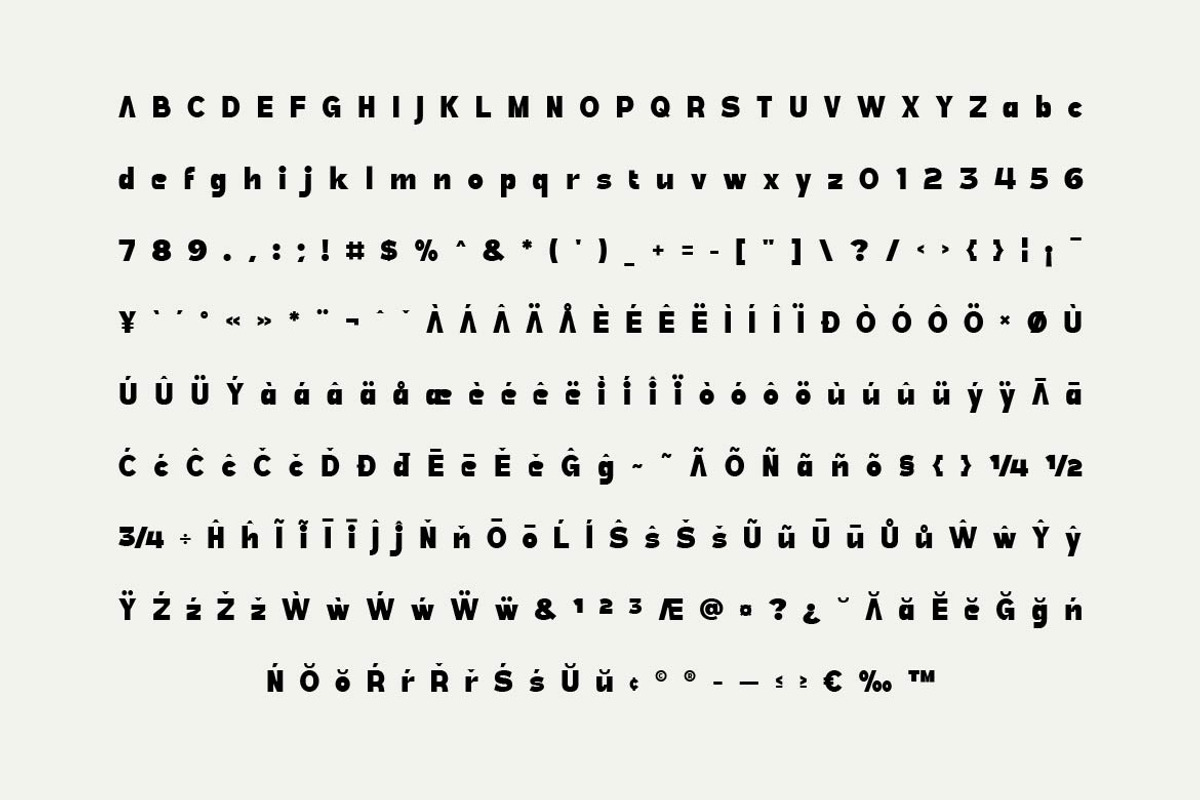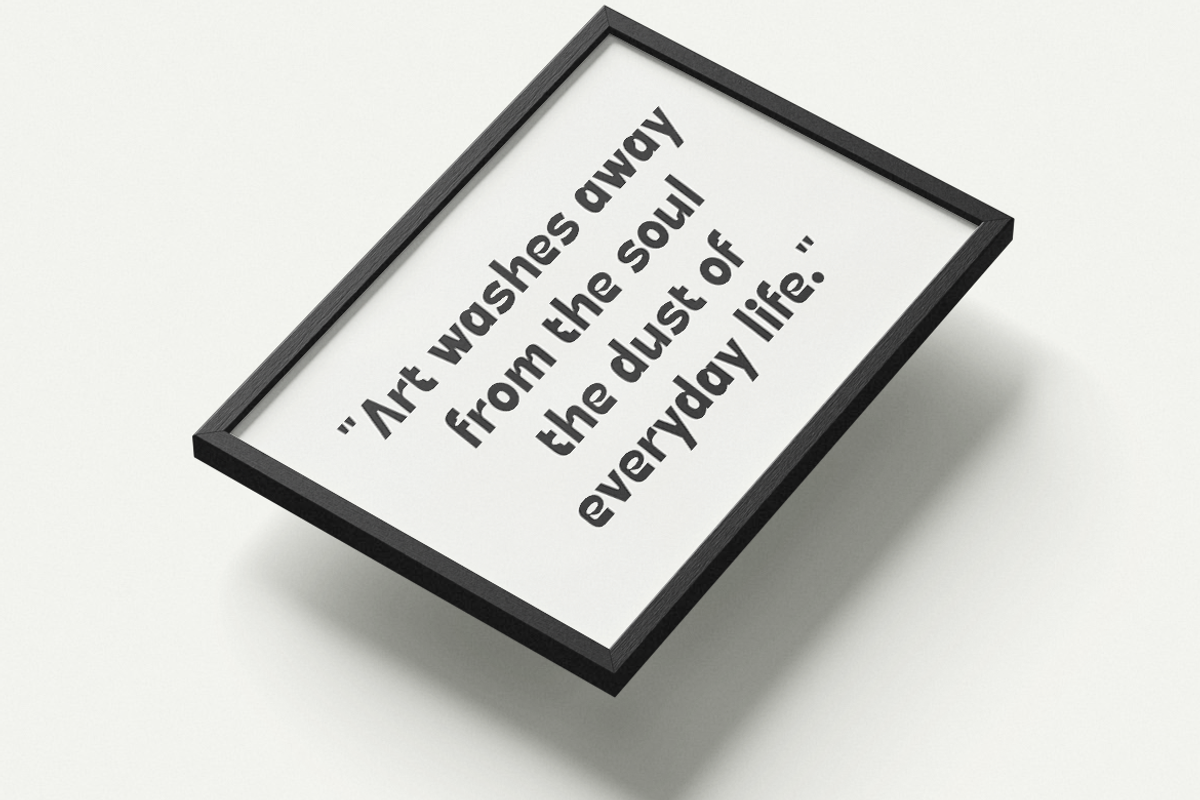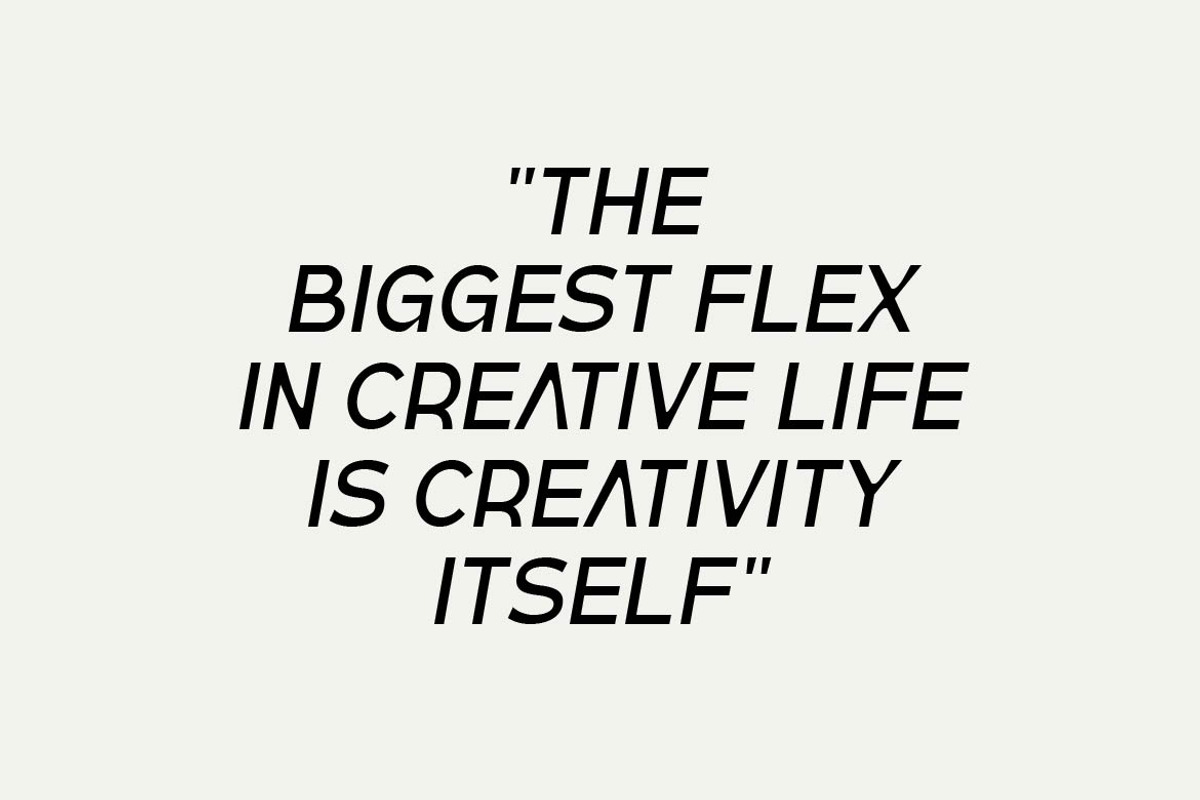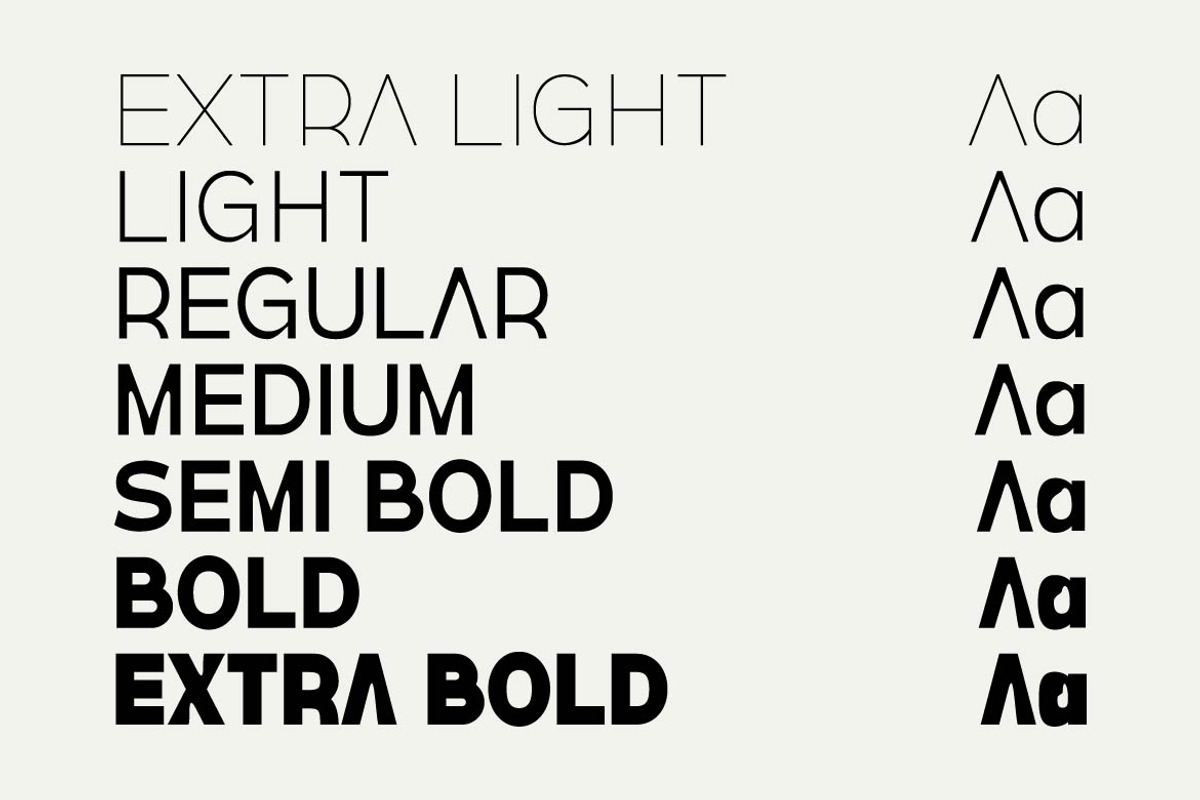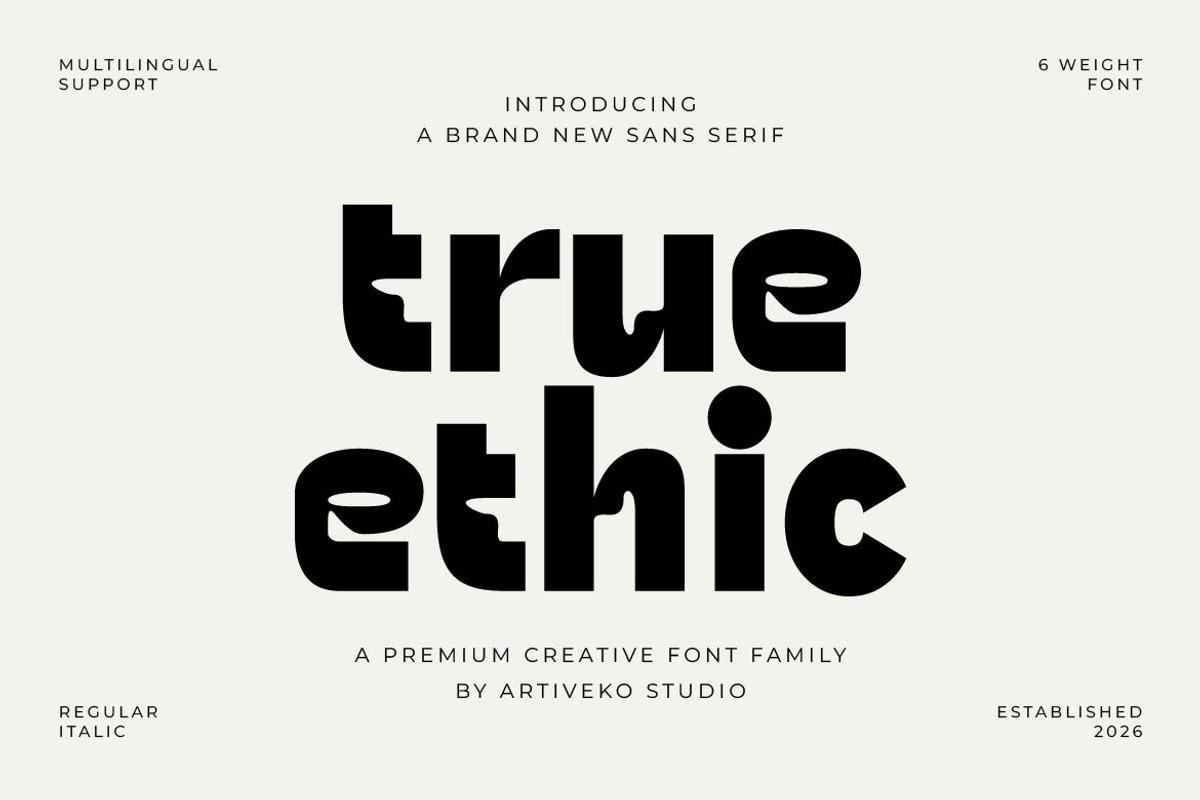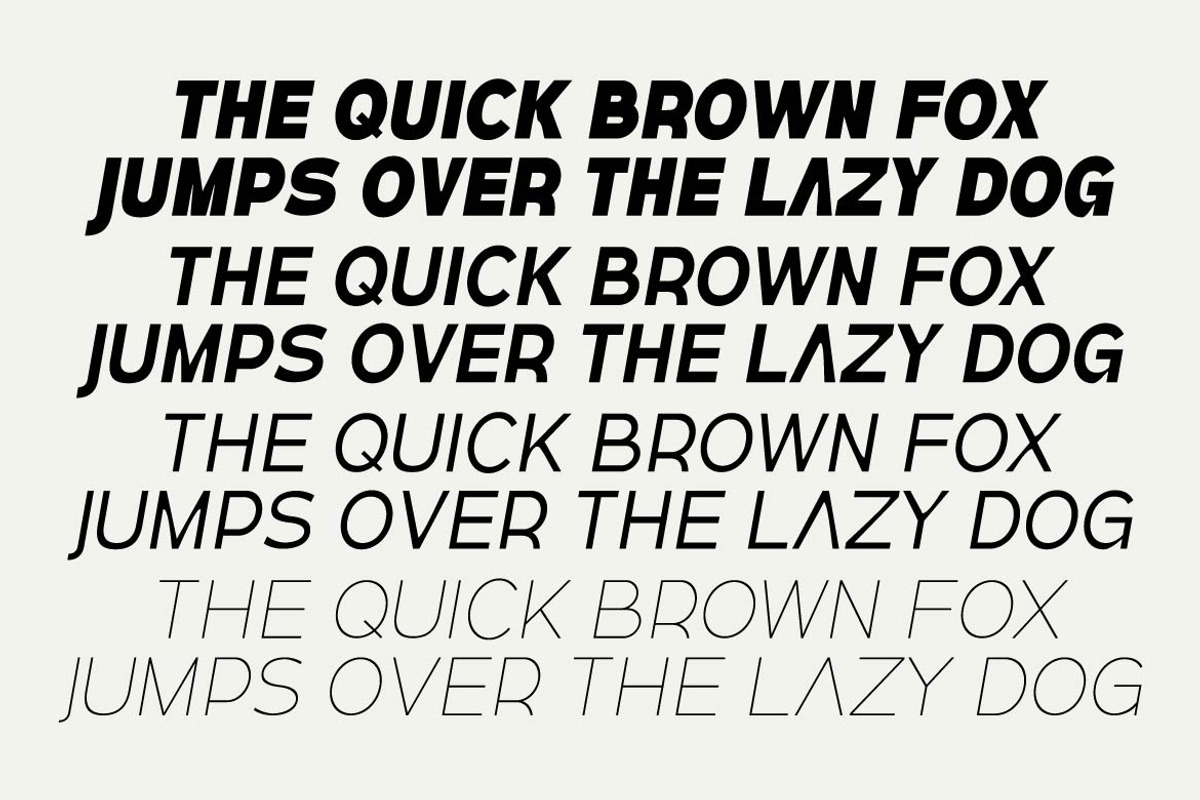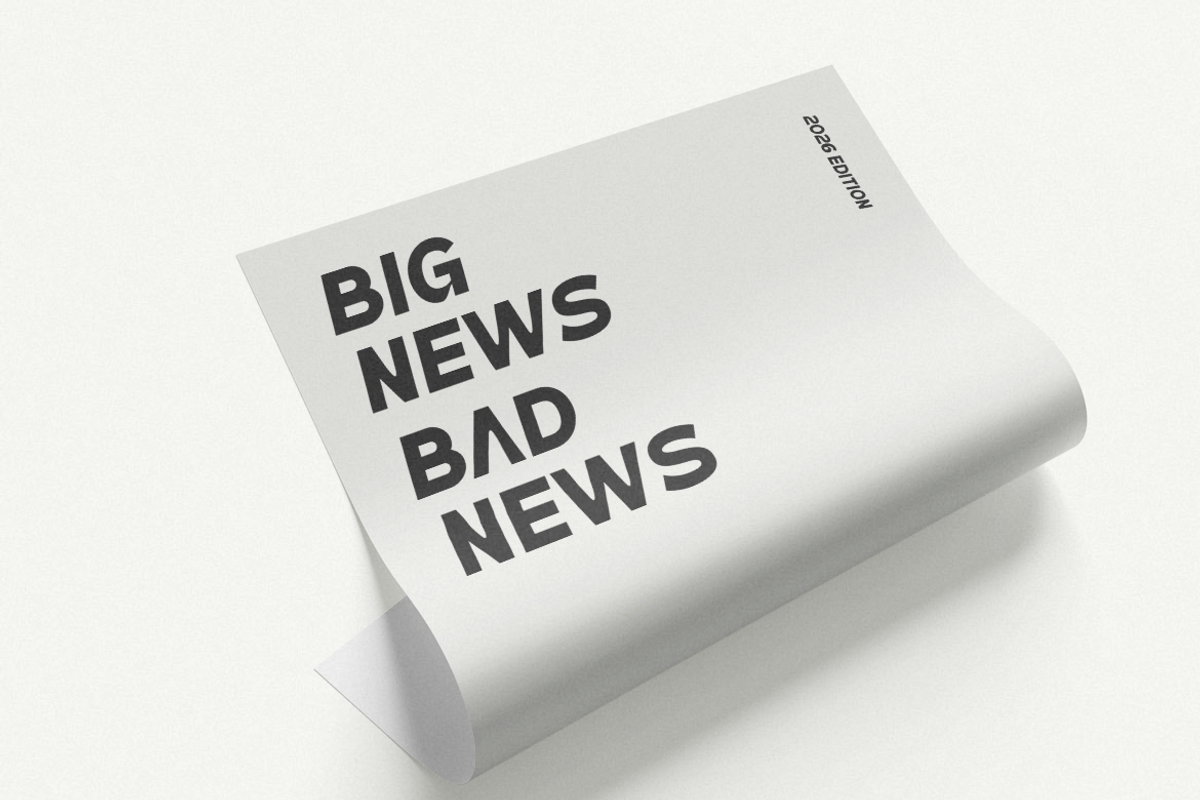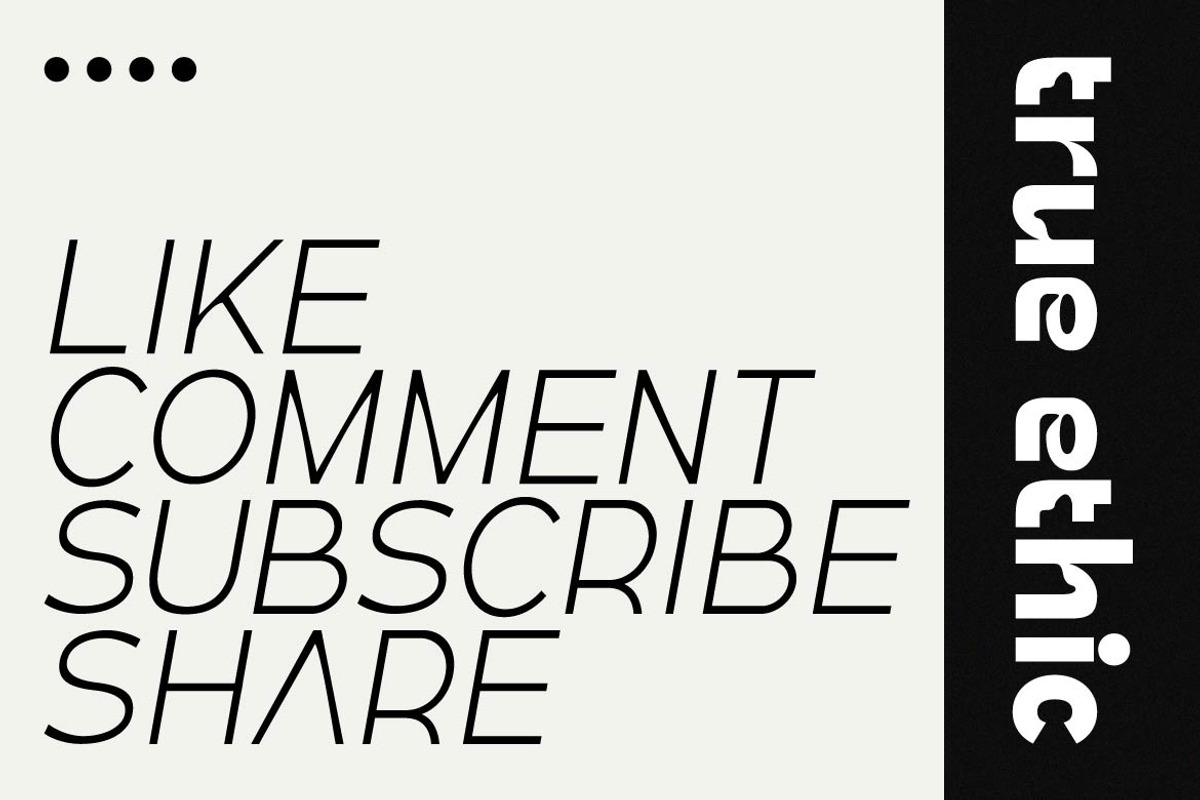
True Ethic – Unique Creative Font
True Ethic is a creative and unique sans serif font family designed for designers who value originality, flexibility, and timeless modern aesthetics. Crafted with distinctive letterforms, balanced geometry, and clean proportions, True Ethic offers a fresh typographic personality while maintaining outstanding readability across every weight.
Ton of glyphs